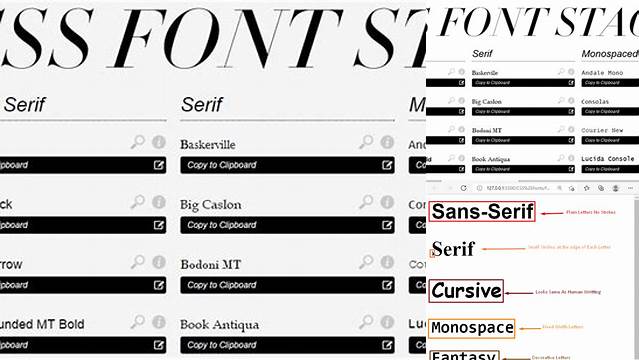
CSS Fonts: A Comprehensive Guide To Adding Font Lists
Hey everyone! Today, we're diving headfirst into the awesome world of CSS fonts! Specifically, we're going to crack the code on how to add a killer list of fonts to your CSS. This is super important because, let's be real, the font you choose can totally make or break your website's vibe. Think about it: a sleek, modern font can scream professionalism, while a playful, quirky font might be perfect for a children's site. So, getting the hang of font lists in CSS is a game-changer. This guide is designed for everyone, from coding newbies to seasoned pros. We'll break down everything you need to know, from the basics of font-family to cool tricks for handling different browsers and situations. Let's get started and make your websites look fantastic!
1. Understanding the Basics: The font-family Property
Alright, guys, let's get down to brass tacks. The heart and soul of font control in CSS is the font-family property. This little powerhouse is what tells your browser which font to use for any given text element. Think of it like this: you have a whole bunch of fonts on your computer (or, you know, that are accessible online), and font-family is the property that helps you tell the browser, "Hey, use this one!" It's super easy to use too. You just apply it to an HTML element, like a <p> tag, an <h1> heading, or the entire <body> of your document. The value you give to font-family is the name of the font you want to use. For example, to use the popular Arial font, you'd write font-family: Arial;. But here's where things get interesting, and where our journey into font lists really begins. You're not just limited to a single font! You can actually provide a list of fonts, and that's where the magic happens. This list is super important for ensuring your text looks consistent across different devices and browsers.
When you create a font list, the browser will go through the list from left to right. If the first font on the list is available on the user's system, the browser will use it. If not, it moves on to the next font in the list. This is called the fallback mechanism, and it's a crucial part of CSS font design. This ensures that even if the primary font you chose isn't available, the browser will choose something that’s a close match, so your text still displays nicely. The goal here is to make sure your design looks good on as many browsers and devices as possible, making your websites friendly to users of any device.
Let's explore the syntax. The list is space-separated, meaning you put a space between each font name. If a font name has spaces in it (like 'Times New Roman'), you need to wrap it in single or double quotes: font-family: 'Times New Roman', serif;. It's always a good idea to finish off your font list with a generic font family. This is an important design element that provides even more flexibility for your font selection. Generic font families (like serif, sans-serif, monospace, cursive, and fantasy) are broad categories. If none of the specific fonts in your list are available, the browser will fall back to a font within the specified generic family, which helps maintain the general look and feel of your website. This makes sure your design looks good on all browsers and devices, providing the optimal user experience.
2. Creating Effective Font Lists: Prioritization and Fallbacks
Okay, so you know the basic syntax, but how do you actually create a good font list? It's all about prioritization and fallbacks, my friends. Remember that the browser reads the list from left to right, so the order matters a lot. The first font in your list is the primary font – the one you really want to use. The second font is the secondary font, a backup option in case the first one isn't available. And so on, down the line. The goal is to provide a set of fonts that give the best possible visual experience while accounting for the wide range of operating systems and browsers out there. Start with your favorite font for your project, then move to more widely available fonts. This approach ensures your content looks the same to the greatest number of users. Prioritizing a font that renders very well is the perfect way to have your content look its best.
Think of it like choosing ice cream flavors. You might really want Chocolate Fudge Brownie (that’s your primary font!), but if the shop doesn't have it, you're happy with plain chocolate (secondary font). And if all else fails, vanilla will do (that’s your generic font family). So, a good font list might look something like this: font-family: 'Open Sans', Arial, sans-serif;. Here, 'Open Sans' is the star of the show. If it's not available, the browser tries Arial. And if that isn't available, it falls back to a generic sans-serif font (like Helvetica or Verdana). Always include a generic font family at the end of your list. This is a crucial step because it ensures that something will be displayed, even if all the specific fonts fail. This step adds a degree of failsafe, providing a visual foundation for your content to sit on. Consider the generic font family as the insurance policy for your website's typography. This ensures that your website will still look great, even on older browsers or unusual systems. This practice ensures that, no matter what, your text will be readable and visually appealing, upholding the integrity of your design.
3. Specific Font Names vs. Generic Font Families
Let's break down the difference between specific font names and generic font families, because this is a cornerstone of understanding how to work with CSS fonts. Specific font names are the actual names of fonts like 'Arial', 'Times New Roman', 'Roboto', and 'Montserrat'. These are the fonts you would install on your system or use from a web font service. When you use a specific font, you're telling the browser,